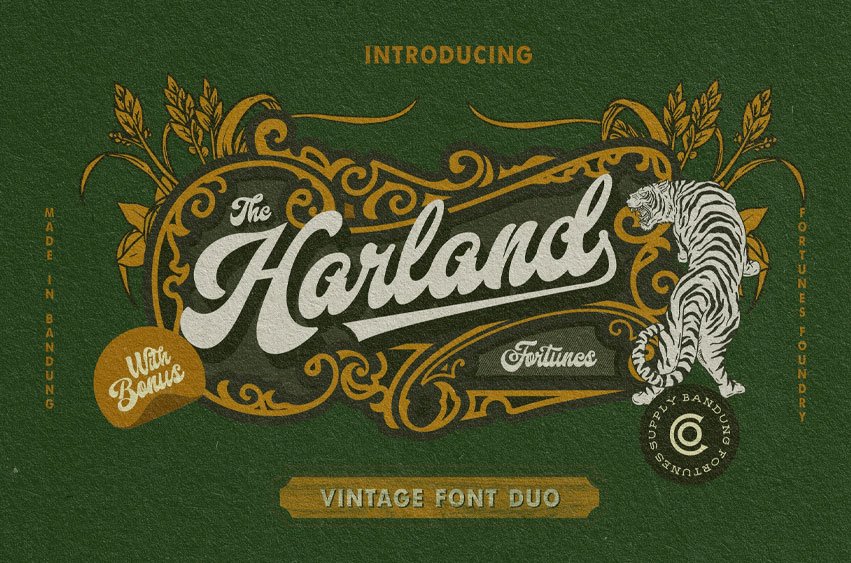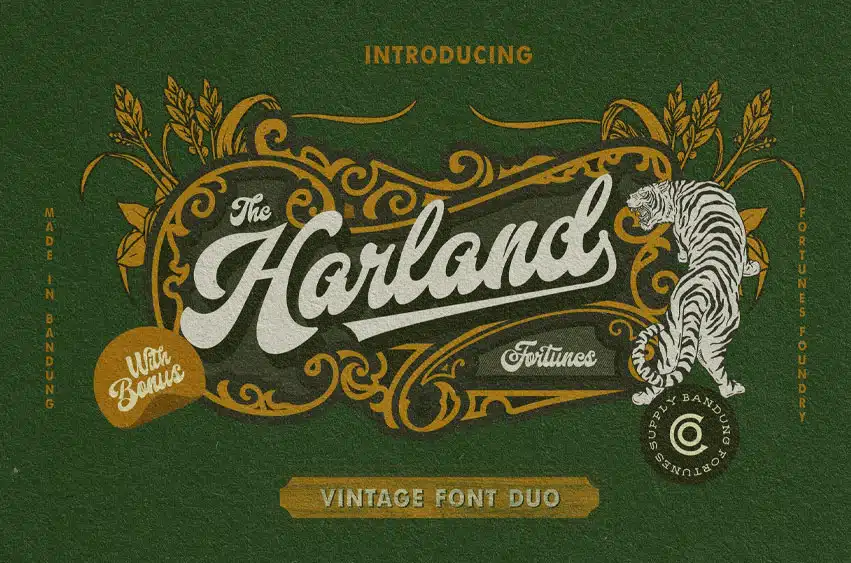
Harland Font Script Vintage typeface, inspired from Vintage baseball sport, sign painting, labeling, suitable for logo, product names packages, labels, old fashioned coffee shops, bars and everything with specific characteristics of past times.
Harland is great combine to create something good and vintage feel.
• Alternates
• Ligatures
• Swash & Dingbats